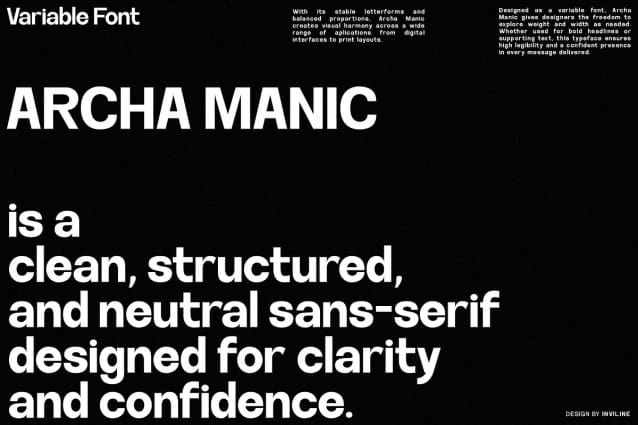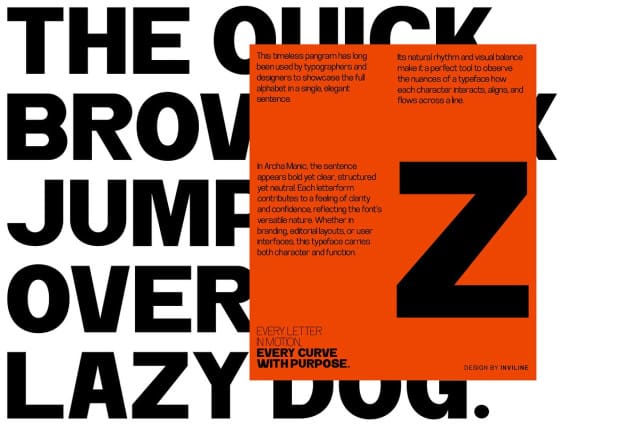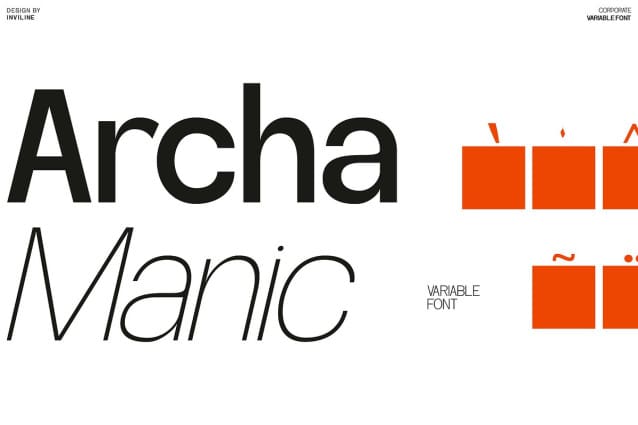
Archa Manic Font
Archa Manic Font is a modern corporate-style variable sans serif designed for clarity, versatility, and expression. With a smooth geometric construction and subtle quirks on its terminals, Archa Manic bridges the gap between modern functionality and distinctive personality.
It comes with 9 static weights and a fully functional variable font, making it perfect for both display headlines and micro body text. The bold characters maintain a confident presence, while the lighter weights carry elegance and neutrality.
From minimalist branding to expressive editorial layouts, Archa Manic adapts gracefully across contexts—just tweak the weight slider and watch it transform.